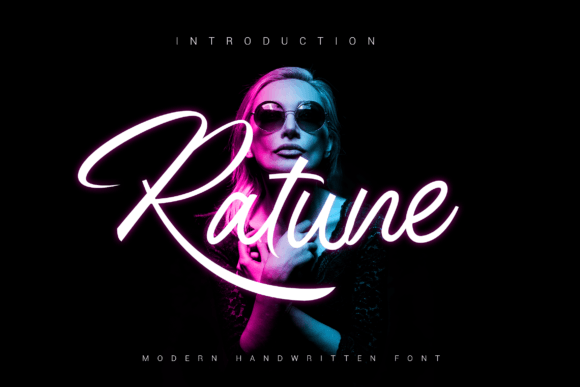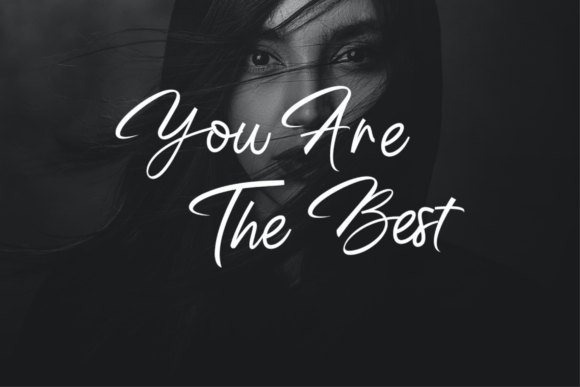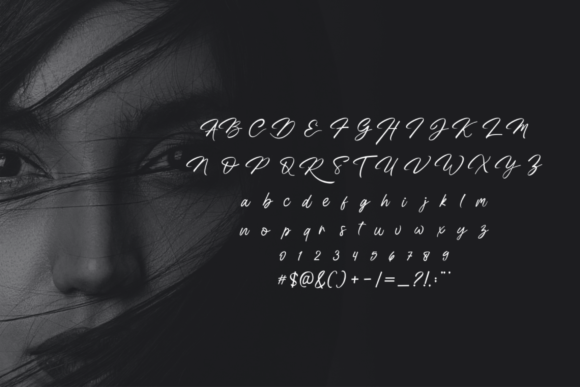
Ratune Font
About Ratune Font
“Ratune” is a gracefully flowing and authentic handwritten font that adds a touch of sincerity to your designs. This versatile typeface is well-suited for a variety of branding projects, including logos, t-shirt printing, exports, and more. Its authentic charm allows it to stand out and make a strong visual impact across a wide range of contexts.
The flowing nature of “Ratune” contributes to its versatility, making it adaptable to different design applications. Whether you’re aiming for a laid-back and casual feel for a t-shirt design or seeking an authentic touch for a logo, this font seamlessly integrates into various branding projects.
The authenticity of “Ratune” gives it a unique character that resonates well with diverse audiences. Its handwritten style adds a personal and genuine touch to your branding efforts, creating a connection with consumers that goes beyond mere aesthetics.
The font’s suitability for different branding projects makes it a valuable asset for designers seeking a versatile typeface that can effortlessly translate their creative vision into a wide array of visual contexts. Whether you’re working on a youthful and trendy brand or a more classic and timeless one, “Ratune” adapts to suit the tone and style of your project.
In conclusion, “Ratune” is more than just a font; it’s a design tool that adds a flowing and authentic touch to your branding projects. Its versatility and adaptability make it suitable for a range of contexts, allowing it to shine in various design applications. Whether it’s for a logo, t-shirt printing, export, or any other branding endeavor, “Ratune” stands out as a font that brings authenticity and a flowing aesthetic to the forefront of your designs.